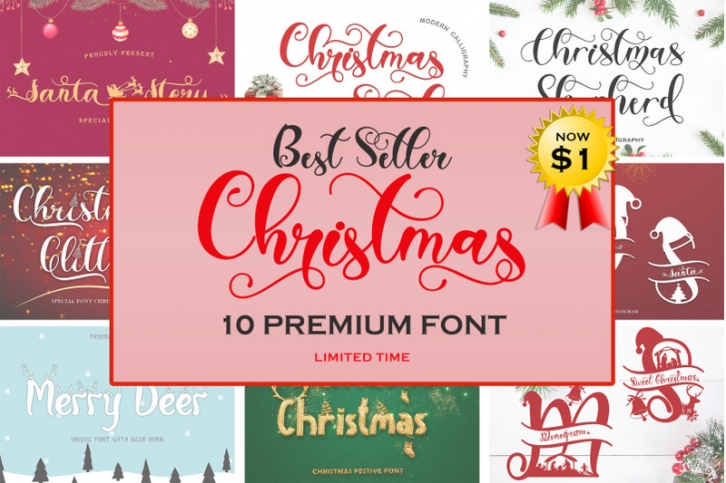
Best Seller Christmas Font Bundle Download
This set includes 10 beautiful and popular fonts christmas !!!
1. Santa Story
2. Merry Deer
3. Diary Santa Monogram
4. Sweet Christmas Monogram
5. Christmas Smile
6. Christmas Shepherd
7. Christmas Glitter
8. Fantastic Christmas
9. Christmas Delight
10. Sanantha
This bundle is perfect for a variety of projects such as christmas, weddings, designs, branding, logos, invitations, stationery, social media posts, advertisements, product packaging, product designs, labels, photography, valentine, easter, mother day, father day, watermarks, special events or whatever, and bonus halloween fonts.